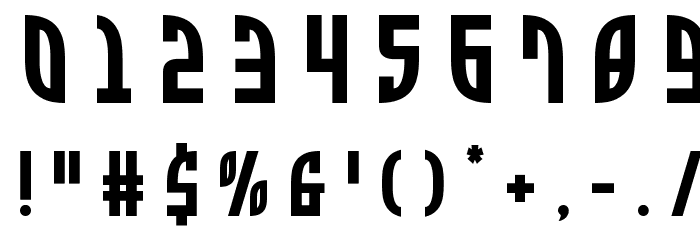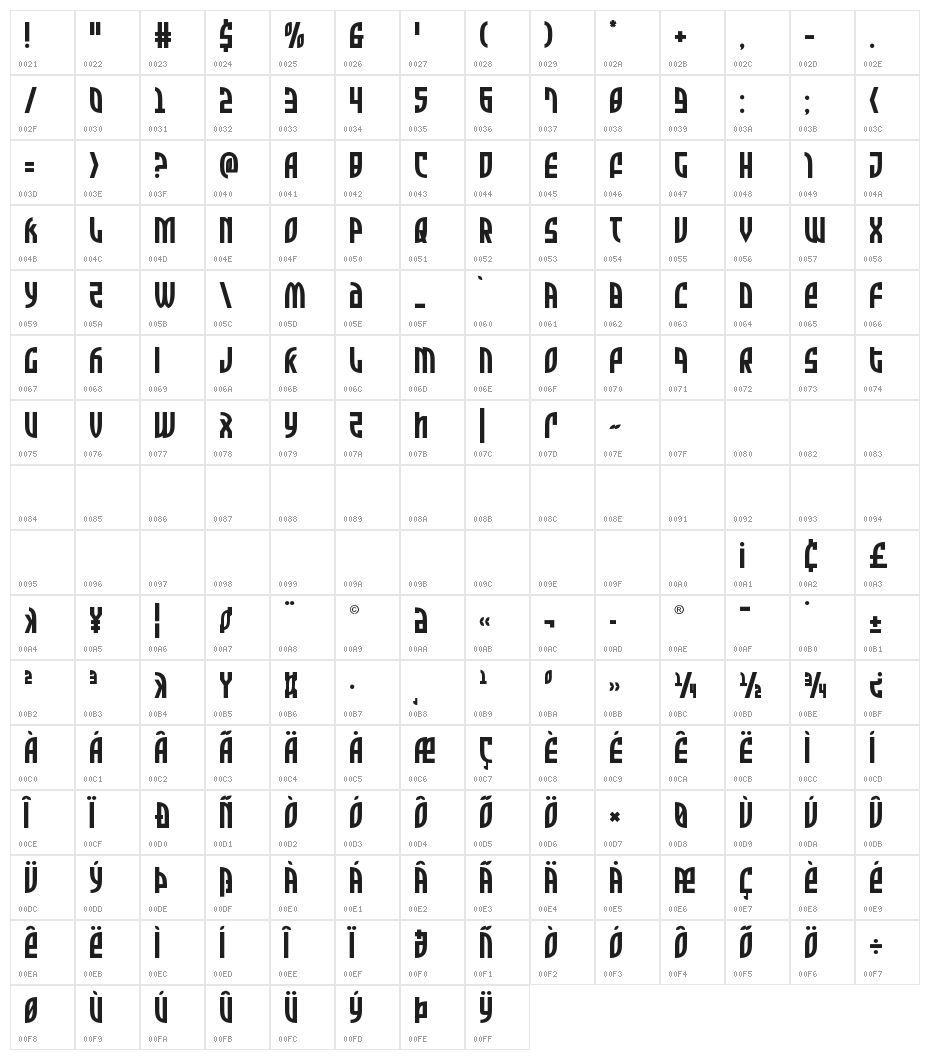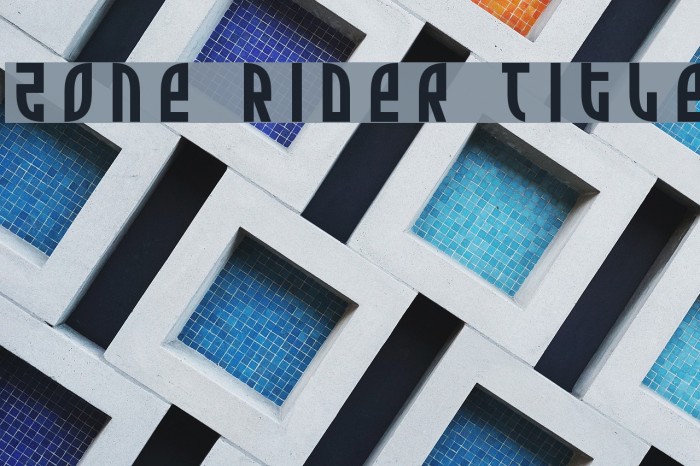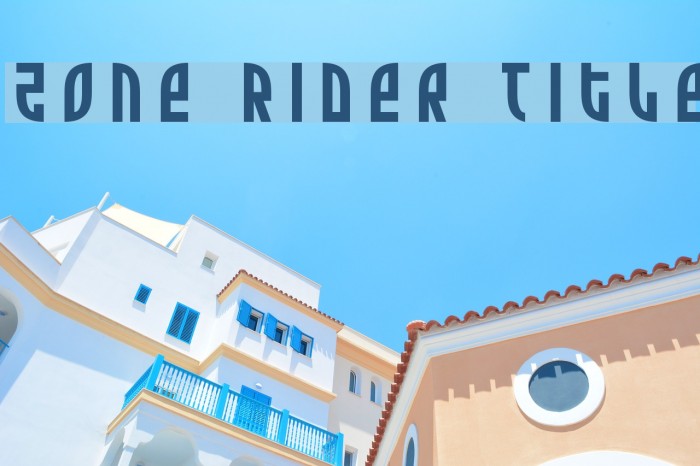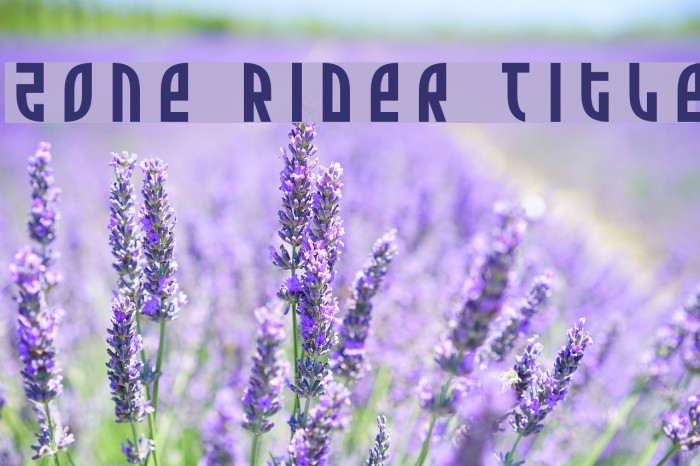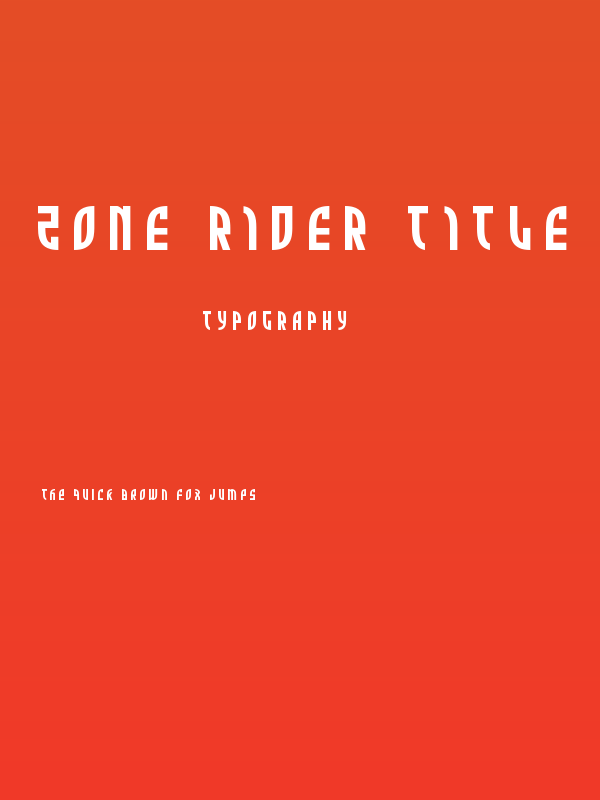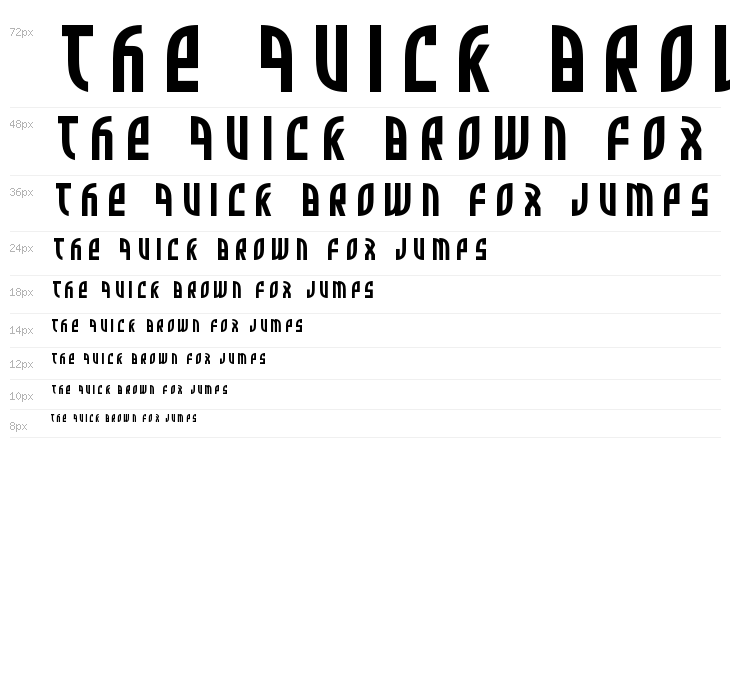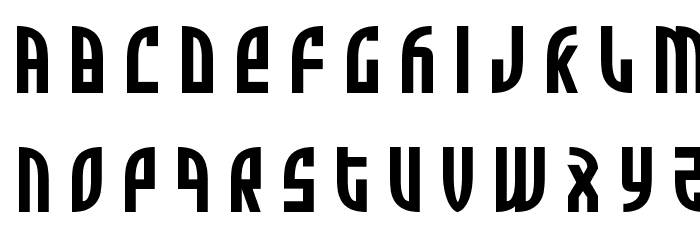
Zone Rider Title Font
Zone Rider Title Description
This font features a bold, futuristic design with sharp, angular lines and a geometric structure. The characters are distinct with a strong presence, making them ideal for attention-grabbing headlines. The uppercase and lowercase letters maintain a consistent style, with unique cutouts and angles that add a modern edge. The numerals and special characters follow the same design principles, ensuring uniformity across all glyphs. This font's boldness and distinctiveness make it suitable for projects that require a strong visual impact.
| Proposed Projects | Ideal for sci-fi themed posters, video game titles, tech branding, and futuristic event flyers. |